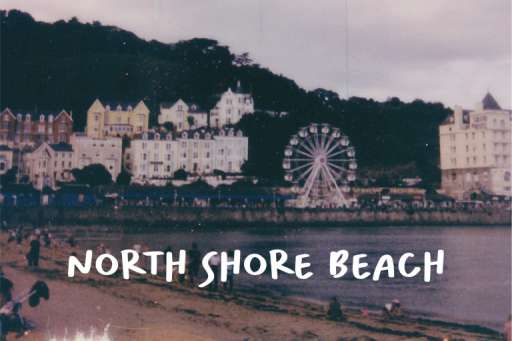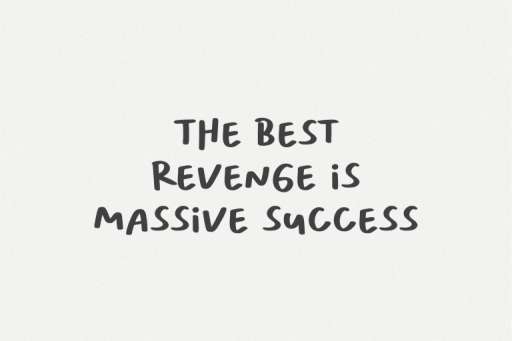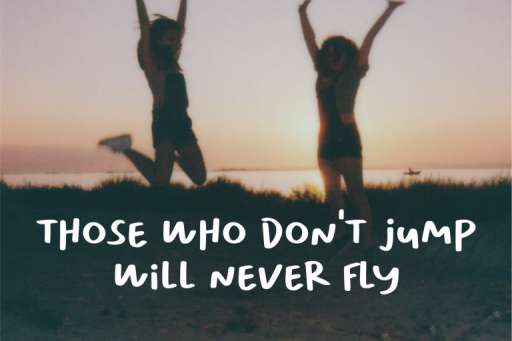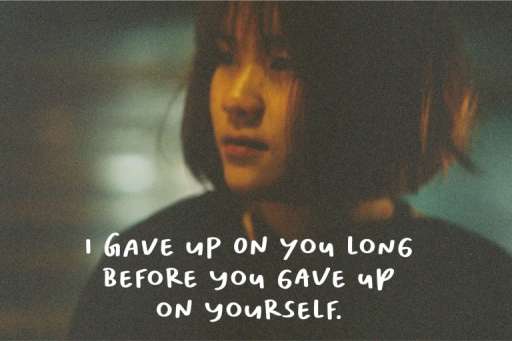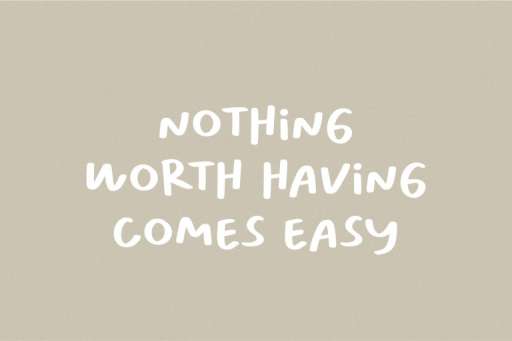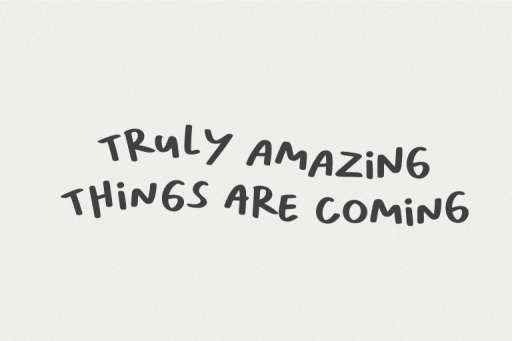
Himalaya Font - Handwriting Logo Font From Jimtype Studio
Himalaya Font
Himalaya – Marker Handwritten Font from Jimtype Studio
Himalaya is such a fun font, it comes with an fun and playful style which is perfect to make any design stand out! This font perfect for creating quotes, logos, creating handwritten notes or just adding a hand-written touch to any project!